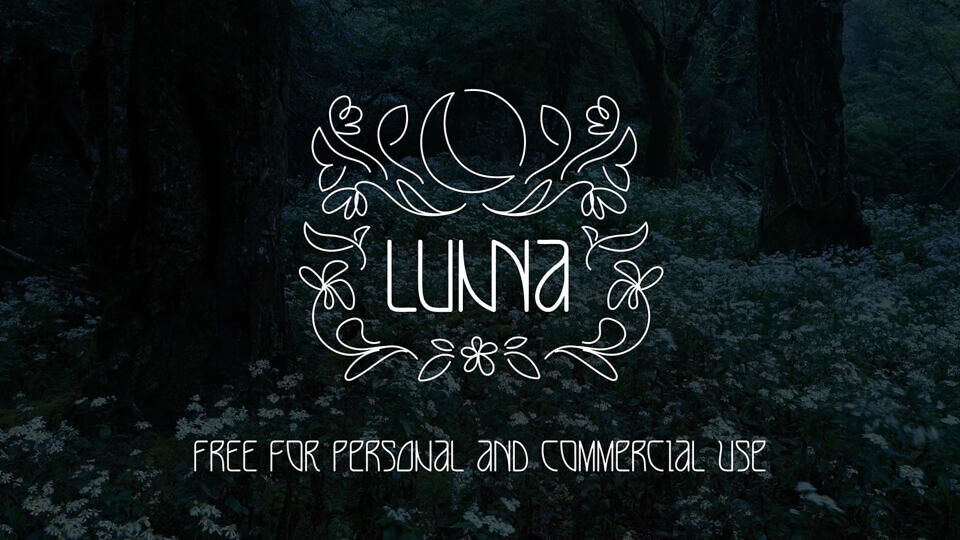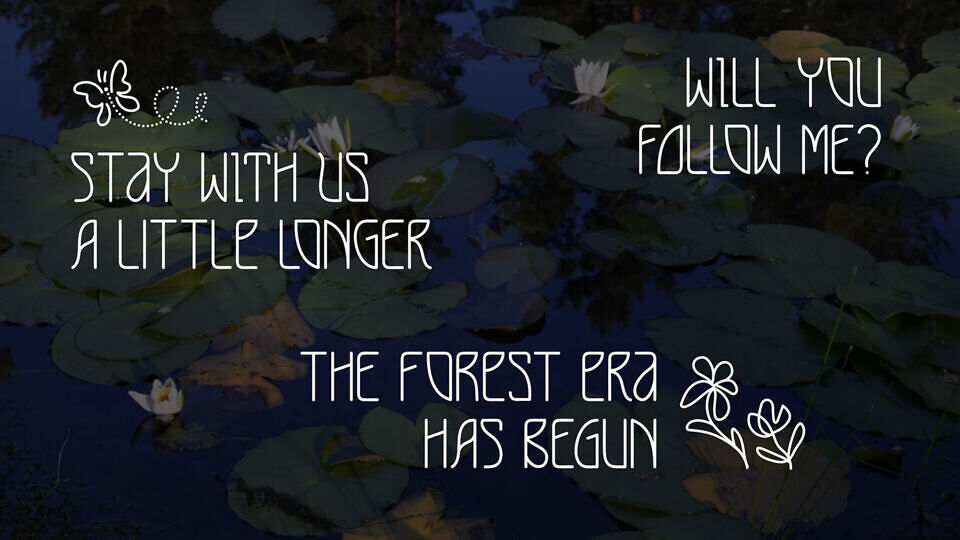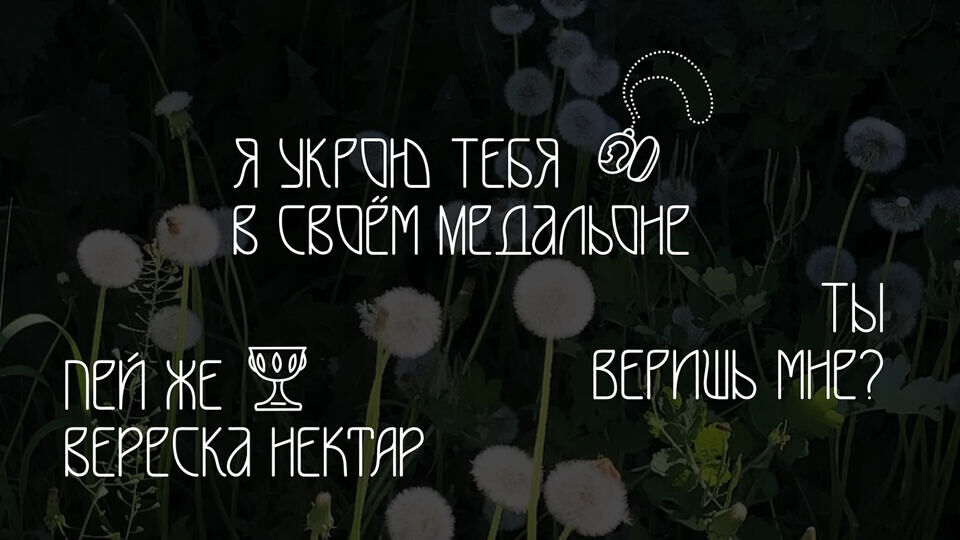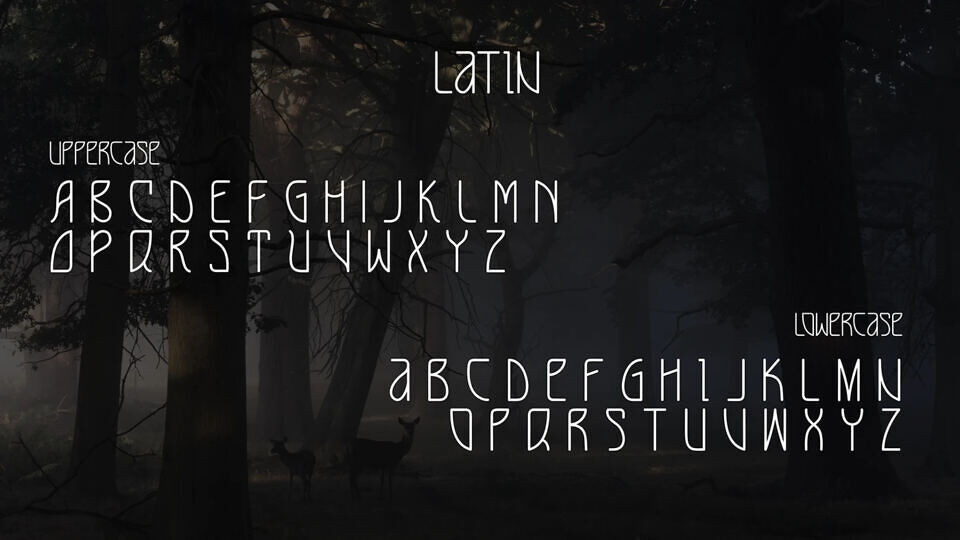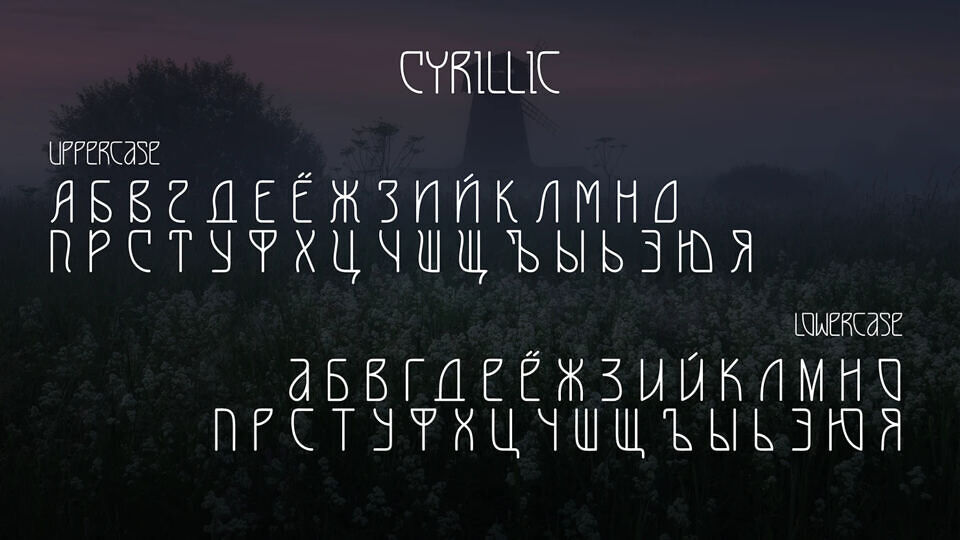
Lunna Font
Lunna crafted by Ver Wave is an elegant, minimalistic typeface with a delicate, line-drawn style. Available in both Latin and Cyrillic scripts, it features uppercase and lowercase letters with a sleek, modern design.
Free for personal and commercial use, it offers a sophisticated yet approachable aesthetic, ideal for posters, logos, and creative projects.